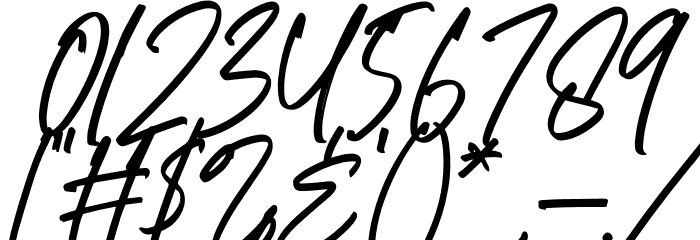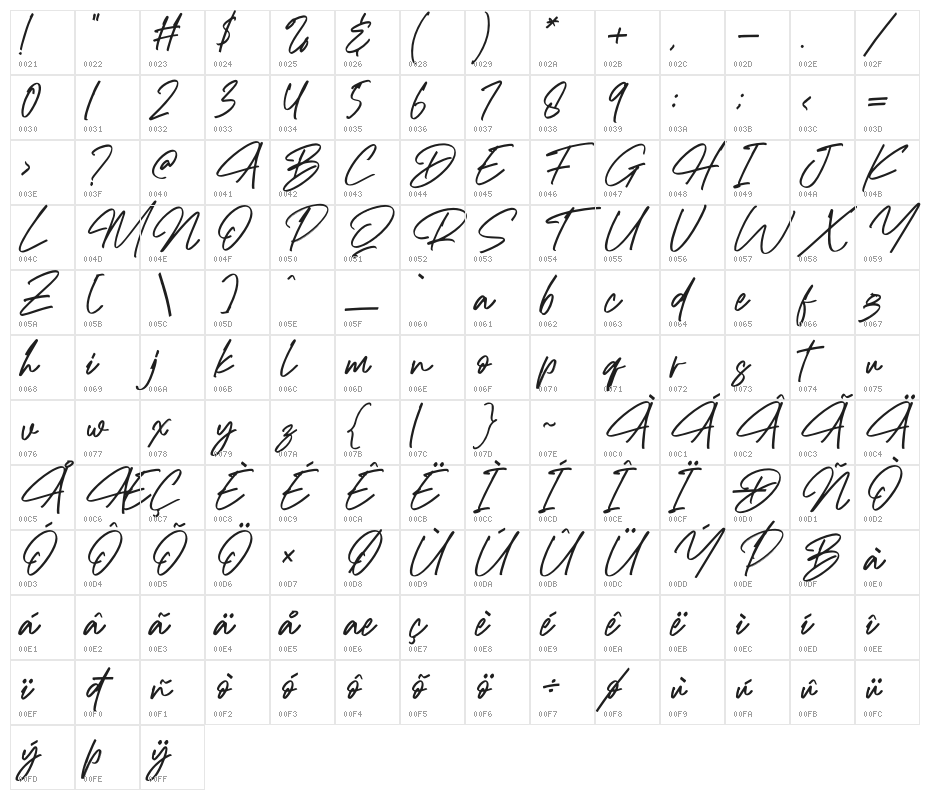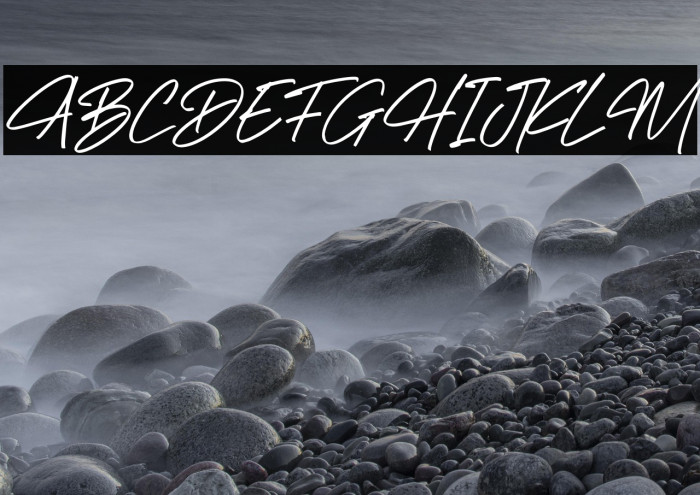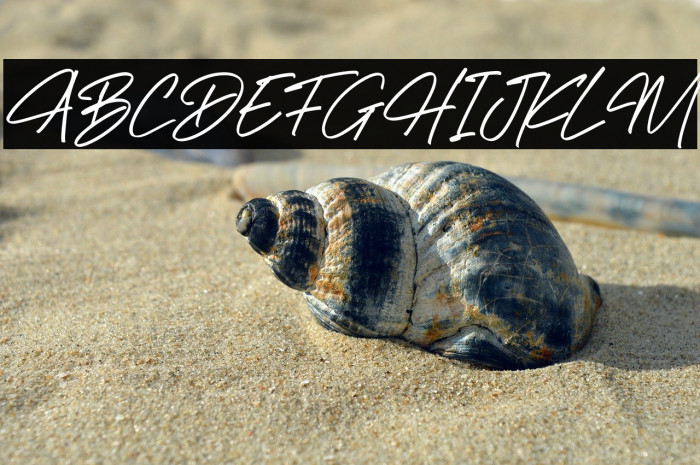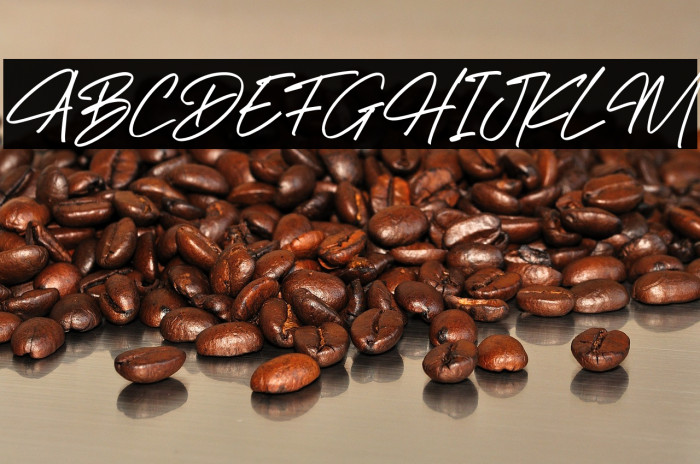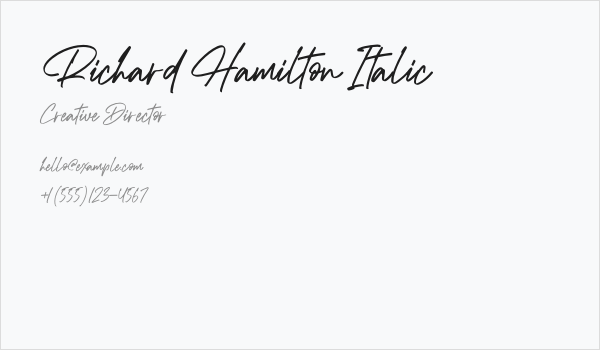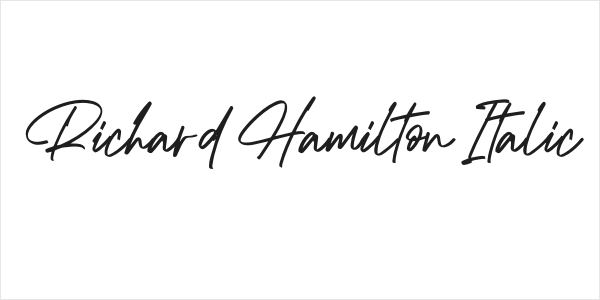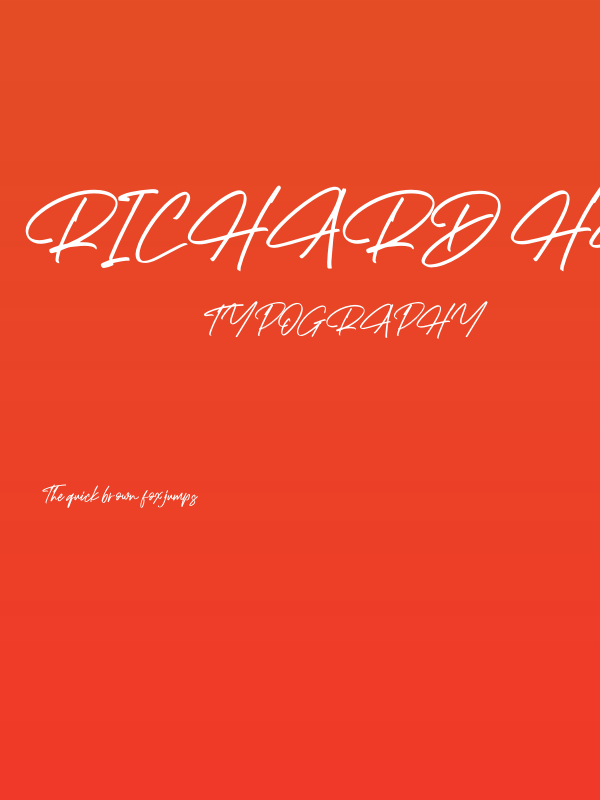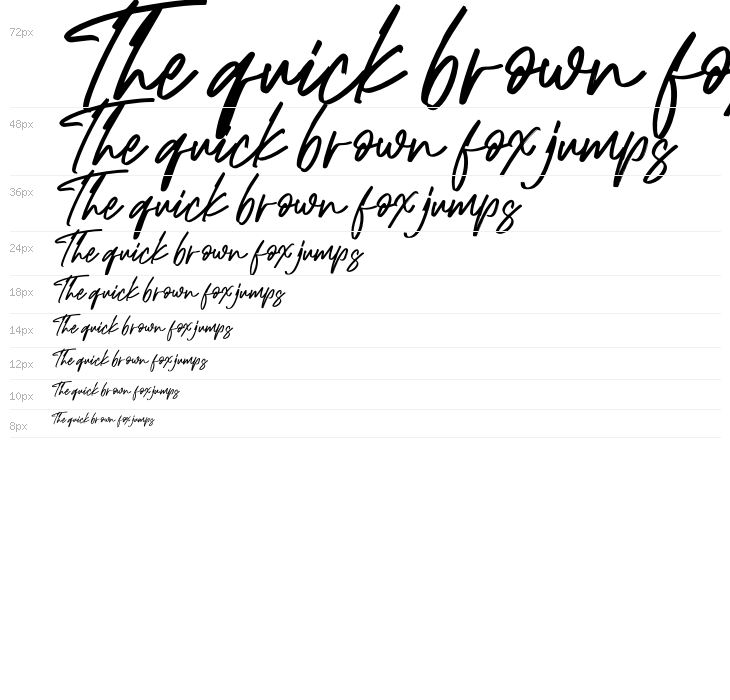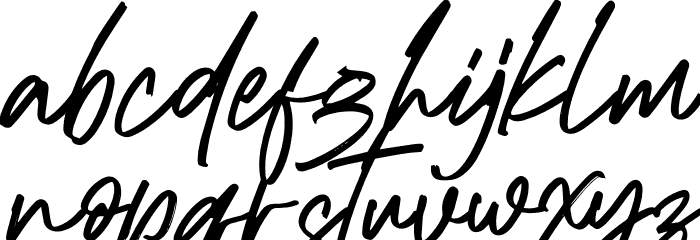
Richard Hamilton Italic Font
Richard Hamilton Italic Description
This font exudes a dynamic and expressive style, characterized by its fluid, cursive strokes that mimic the natural flow of handwriting. The letters are connected, creating a seamless and elegant appearance. The uppercase letters maintain a consistent height, while the lowercase letters vary in size, adding to the font's organic feel. The numerals and special characters are crafted with the same attention to detail, ensuring a cohesive look across all elements. The overall design is both sophisticated and approachable, making it suitable for a variety of creative applications.